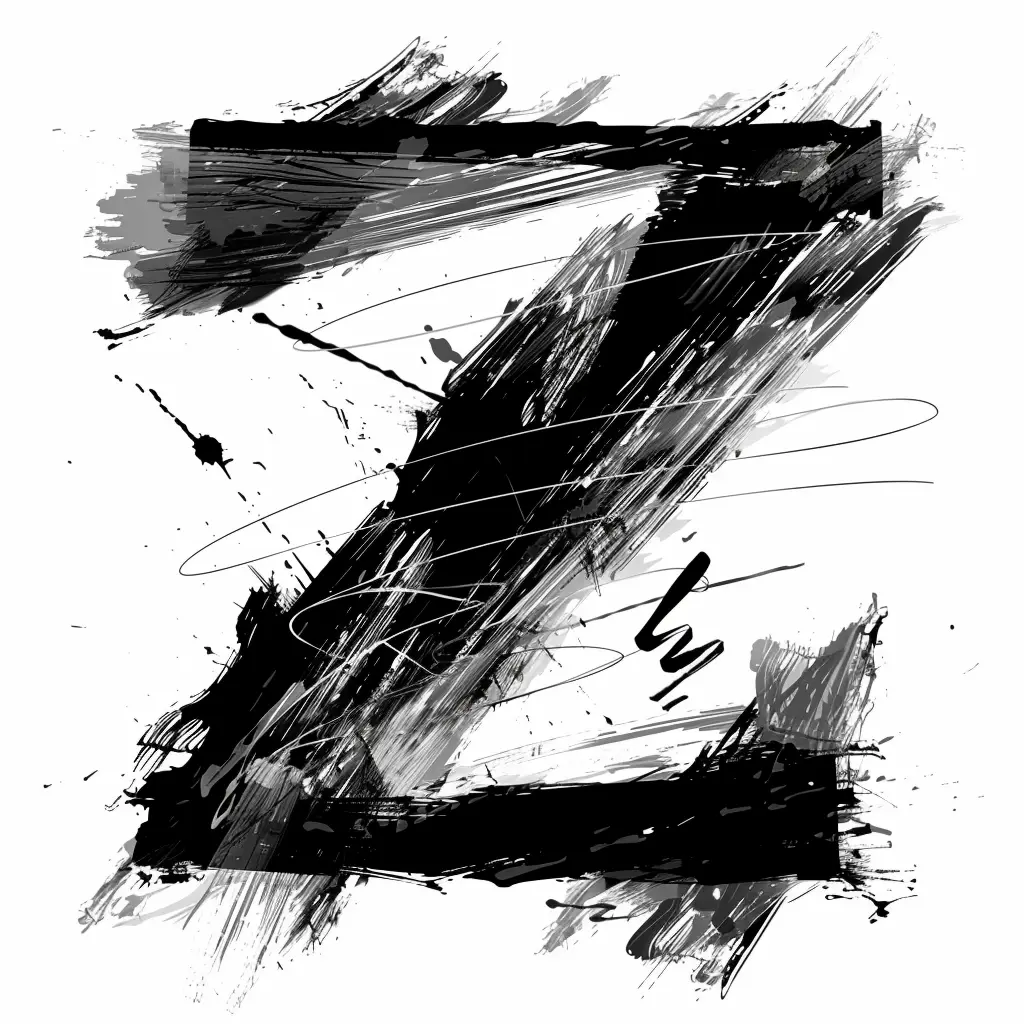
The image features a stylized, abstract representation of the letter "Z," rendered in bold black brushstrokes with dynamic, textured details. The design incorporates splatters, streaks, and curved lines, creating a grungy, artistic effect against a light gray background. The monochromatic color scheme (black and gray) emphasizes the raw, expressive style of the composition.